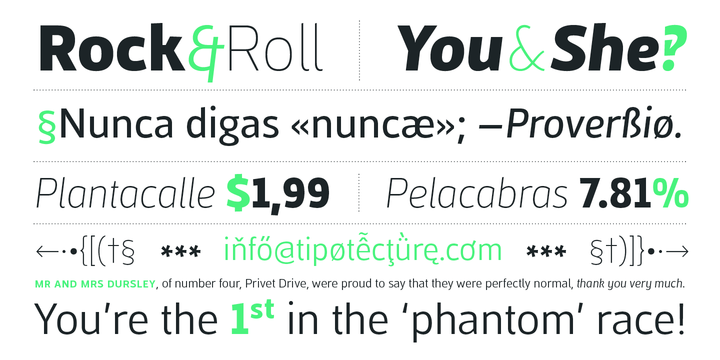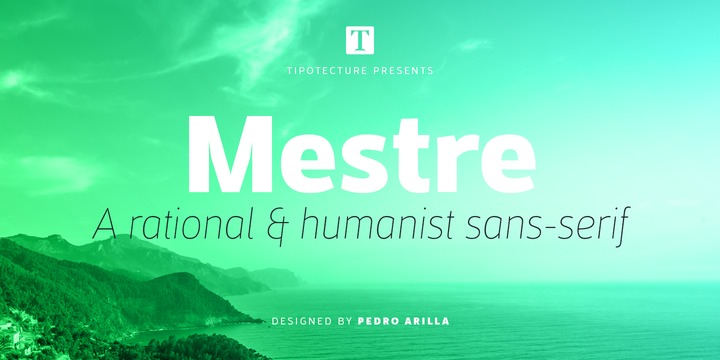
Mestre
Mestre Font
Mestre Font Family
Mestre is a German & Dutch inspired geometric sans-serif designed by Pedro Arilla for Tipotecture. Its solid and formal shapes are embedded with a discreet humanist flair resulting on a very versatile contemporary hybrid and a highly functional and flexible font for many of today’s editorial and corporate requirements.